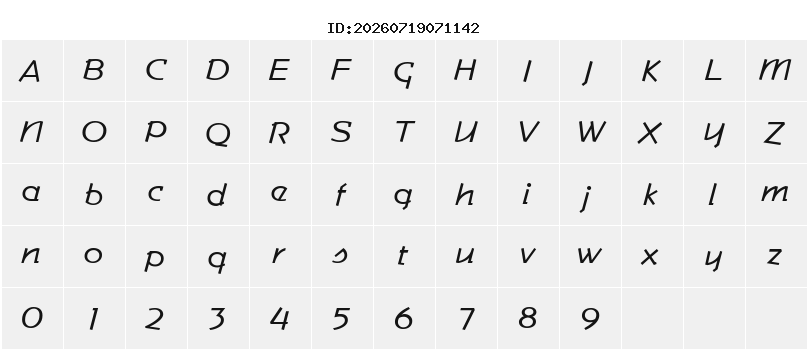
• Font Name: Commerce Lean
• Full Font Name: Commerce Lean
About Commerce Lean.ttf
Commerce Lean.ttf is a modern, elegant sans-serif font designed for ultimate readability and visual harmony. Perfect for branding, headlines, web design, and print materials.